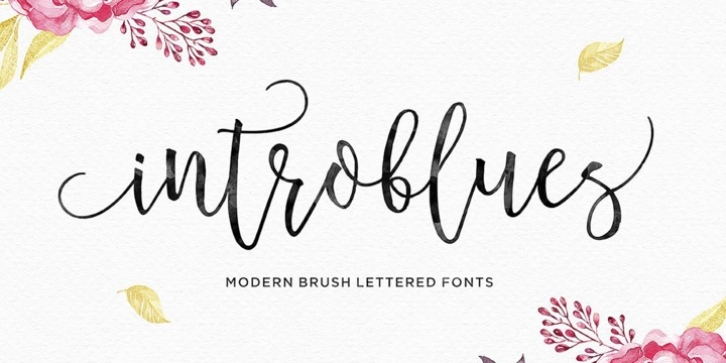
Publisher: Dhanstudio
Introblues Script is a modern brush font, organic, dynamic and energetic style. It can be used for various purposes. such as for titles, signatures, logos, correspondence, wedding invitations, letterhead, signage, labels, newsletters, posters, badges, etc.
Introblues Script features 228 Glyphs, 118 alternate characters, including initial and terminal letters, alternates, ligatures and International support for most Western Languages is included.